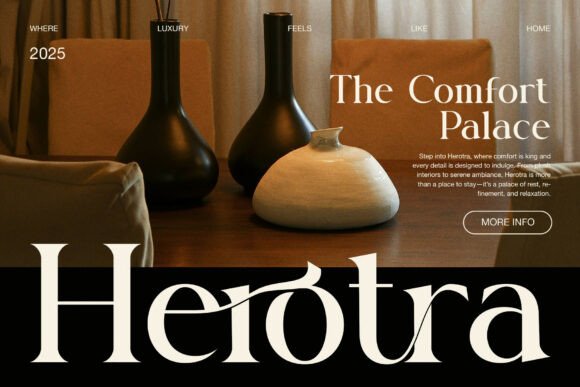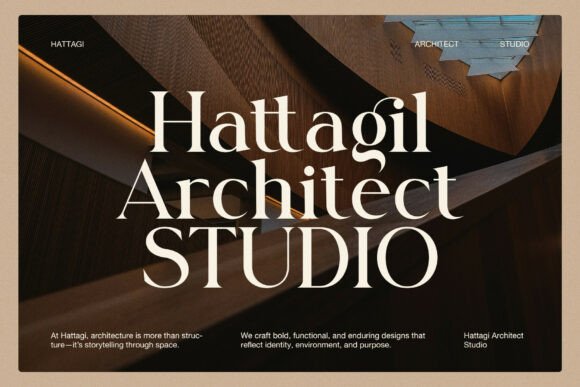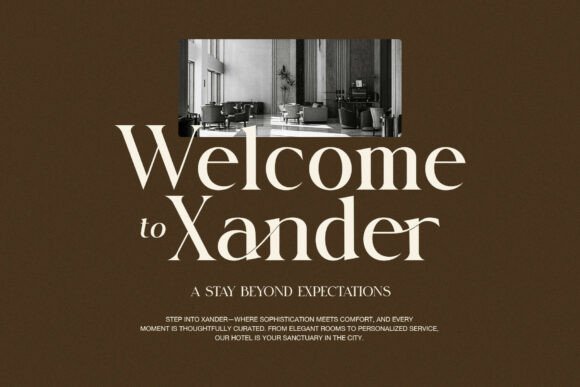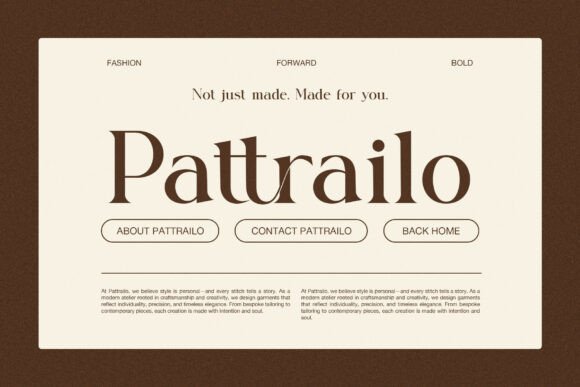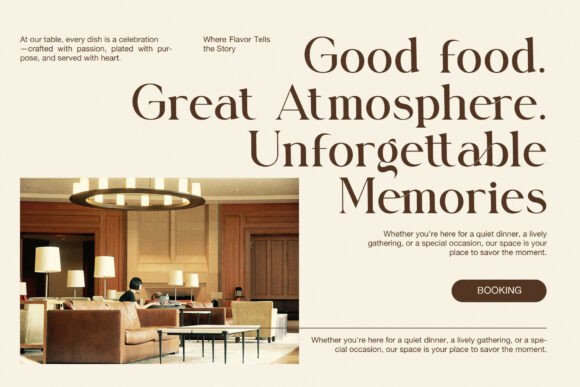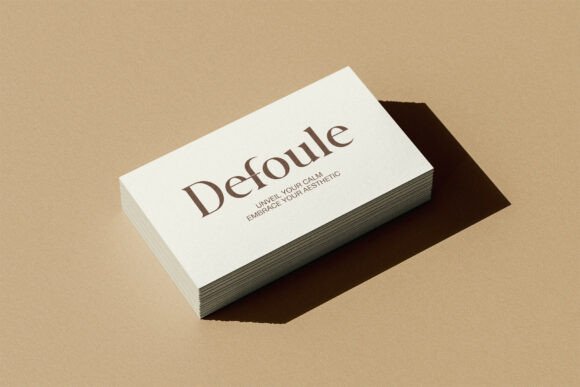
Discover the Elegance of Gitrong Font: Elevate Your Designs with Timeless Sophistication
In the world of typography, few fonts manage to strike a balance between elegance, emotion, and character. Gitrong Font, however, achieves this delicate balance with grace. Designed to express beauty and refined character, Gitrong is an elegant serif display font that draws inspiration from editorial design and modern luxury aesthetics. This exquisite font combines smooth curves with confident serif structures, making it a versatile choice for designers seeking a timeless yet fresh look for their projects.
The Essence of Gitrong: A Blend of Classic and Contemporary
Gitrong’s design is rooted in the principles of editorial design, which emphasizes clarity, readability, and aesthetic appeal. The font’s creator aimed to craft a typeface that not only pays homage to traditional serif fonts but also incorporates modern elements to make it relevant for contemporary projects. The result is a font that feels both classic and cutting-edge, suitable for a wide range of applications, from luxury branding to editorial design.
Key Features of Gitrong Font
Gitrong boasts several key features that set it apart from other serif fonts:
• Smooth Contrast: The font exhibits a smooth transition between thick and thin strokes, creating a visually appealing rhythm that enhances readability.
• Delicate Terminals: The terminals of Gitrong’s letters are delicately crafted, adding a touch of sophistication and elegance to the font.
• Artistic Details: The font includes artistic details that not only add to its aesthetic appeal but also improve visual flow, making it easier to read.
• Stylish Alternates and Ligatures: Gitrong comes with a range of stylish alternates and carefully crafted ligatures, allowing designers to create distinctive and personal typography.
Applications of Gitrong Font
Given its elegant and versatile nature, Gitrong Font is suitable for a variety of design projects:
• Headlines and Titles: The font’s elegant serif structure and smooth contrast make it perfect for headlines and titles, where clarity and aesthetic appeal are paramount.
• Branding and Logo Design: Gitrong’s refined character and artistic details make it an excellent choice for luxury brands looking to convey sophistication and elegance.
• Editorial Design: The font’s readability and aesthetic appeal make it suitable for editorial design, including magazines, newspapers, and digital publications.
Why Choose Gitrong Font?
In a market flooded with fonts, Gitrong stands out for several reasons:
• Timeless Appeal: Unlike trendy fonts that may quickly become outdated, Gitrong’s classic design ensures it remains relevant for years to come.
• Versatility: The font’s elegant and versatile nature makes it suitable for a wide range of projects, from digital designs to print materials.
• Distinctive Typography: With its stylish alternates and ligatures, Gitrong allows designers to create distinctive typography that sets their work apart.
Gitrong Font is a masterpiece of modern typography, offering a perfect blend of elegance, emotion, and character. Its timeless appeal, versatility, and distinctive features make it an excellent choice for designers and crafters looking to elevate their designs. Whether you’re working on a luxury brand project, editorial design, or simply looking for a font that exudes sophistication, Gitrong is sure to meet your needs and exceed your expectations.
Discover the beauty of Gitrong Font and take your designs to the next level with its refined character and artistic details. Experience the elegance and versatility that Gitrong has to offer and make it a part of your design arsenal.